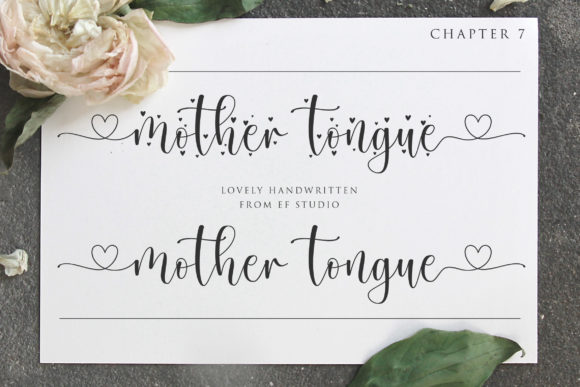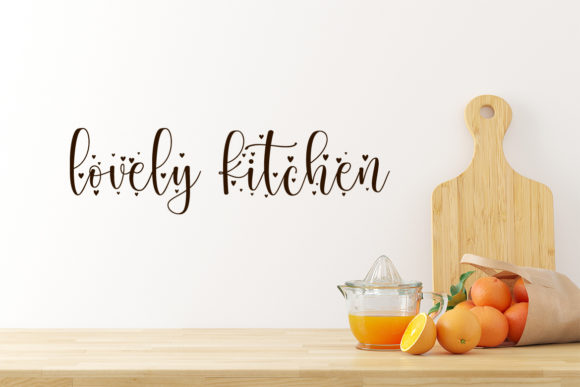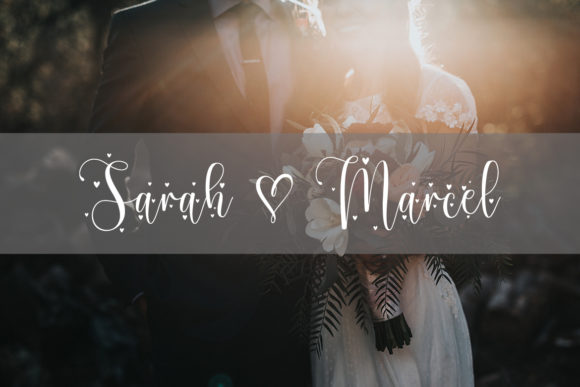
Mother Tongue
Looking for a charming, bespoke font to add a personal touch to your design projects? Consider "Mother Tongue", a gorgeous handwritten font that exudes elegance and sophistication.
This unique font features two distinct styles, allowing you to tailor your design to suit your needs. With its flowing script and imperfect imperfections, Mother Tongue is perfect for creating invitations, stationery, wedding designs, labels, logos, and special event materials that require a touch of whimsy and romance.
What truly sets Mother Tongue apart is the thoughtful addition of lowercase beginning and ending swashes. These delicate flourishes add an extra layer of sophistication and refinement to your text, making it perfect for special occasions like weddings, birthdays, and anniversaries.
Whether you're designing a custom invitation, creating branding materials for a new business, or simply want to add some personality to a blog post, Mother Tongue's beautiful handwriting is sure to make your project stand out. Its unique blend of elegance and playfulness makes it an excellent choice for designers seeking a font that can be used in a variety of contexts, from formal events to everyday use.
If you're looking for a font that will give your designs a personal touch, Mother Tongue is the perfect choice. With its beautiful handwriting, charming swashes, and versatility, this font is sure to become a favorite among designers seeking to add some extra flair to their work.